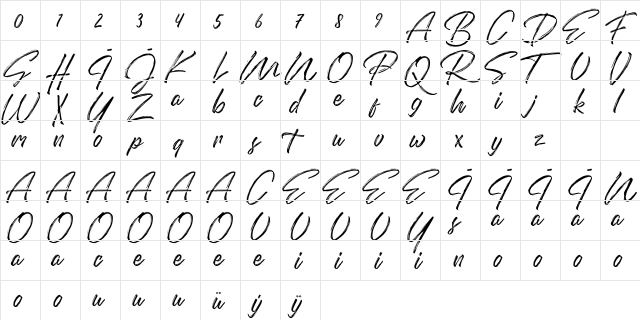
Domillion Brush Free Regular
| Foundry | Ardyanatypes Studio |
| Designer | Ardyanatypes |
Design Context for Domillion Brush Free Typeface
Domillion Brush Free brings a calligraphic fluidity to the page — its connecting strokes and expressive curves give it an unmistakably human quality.